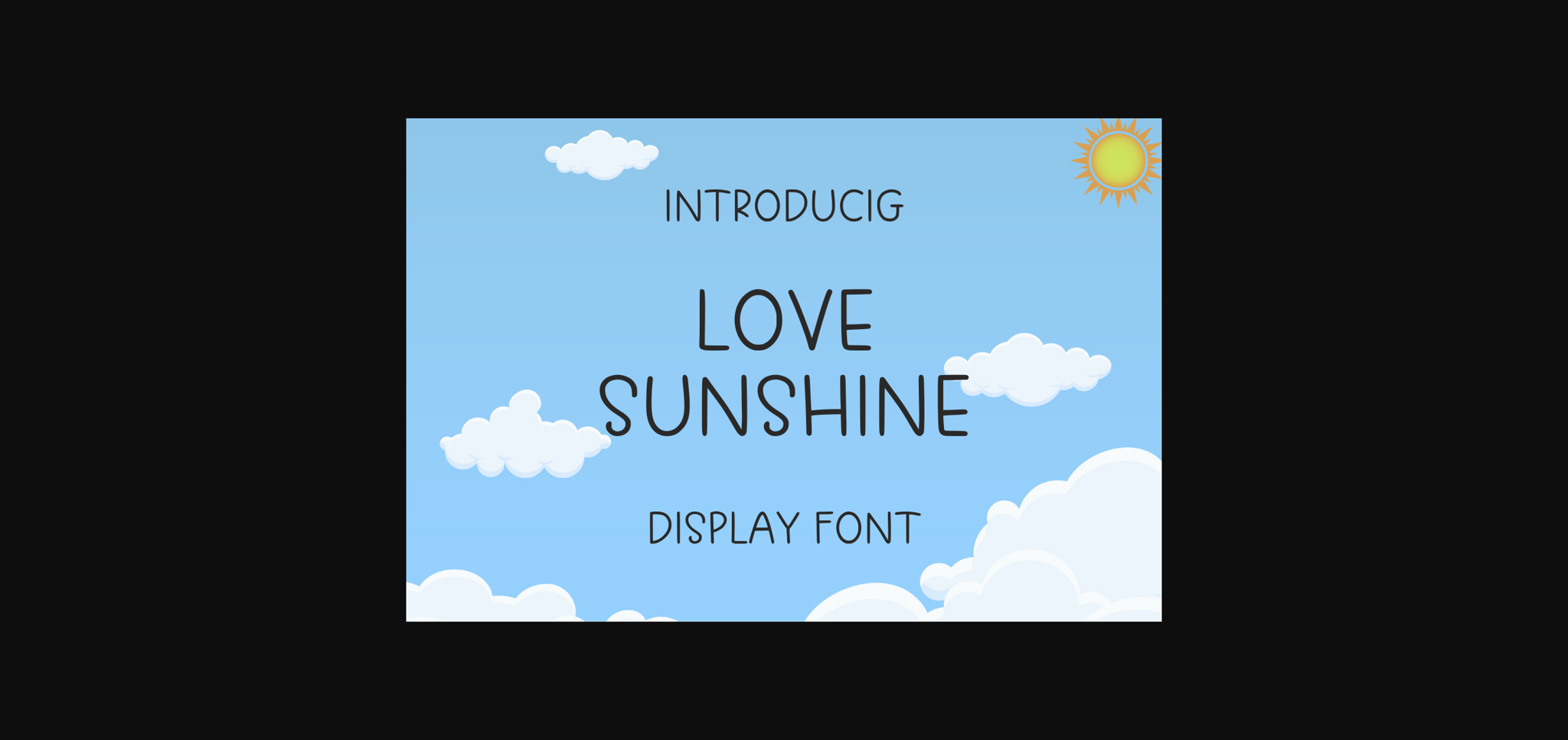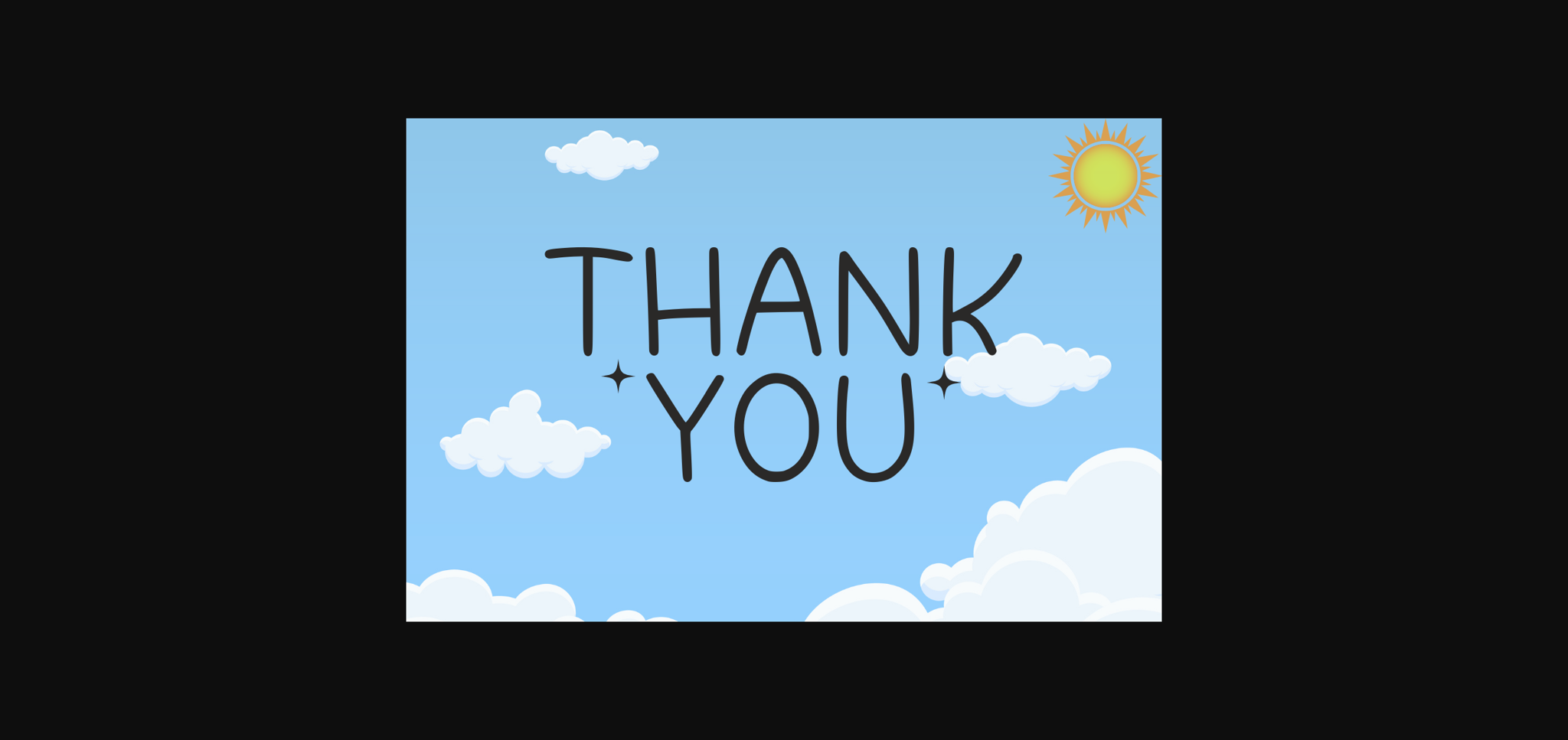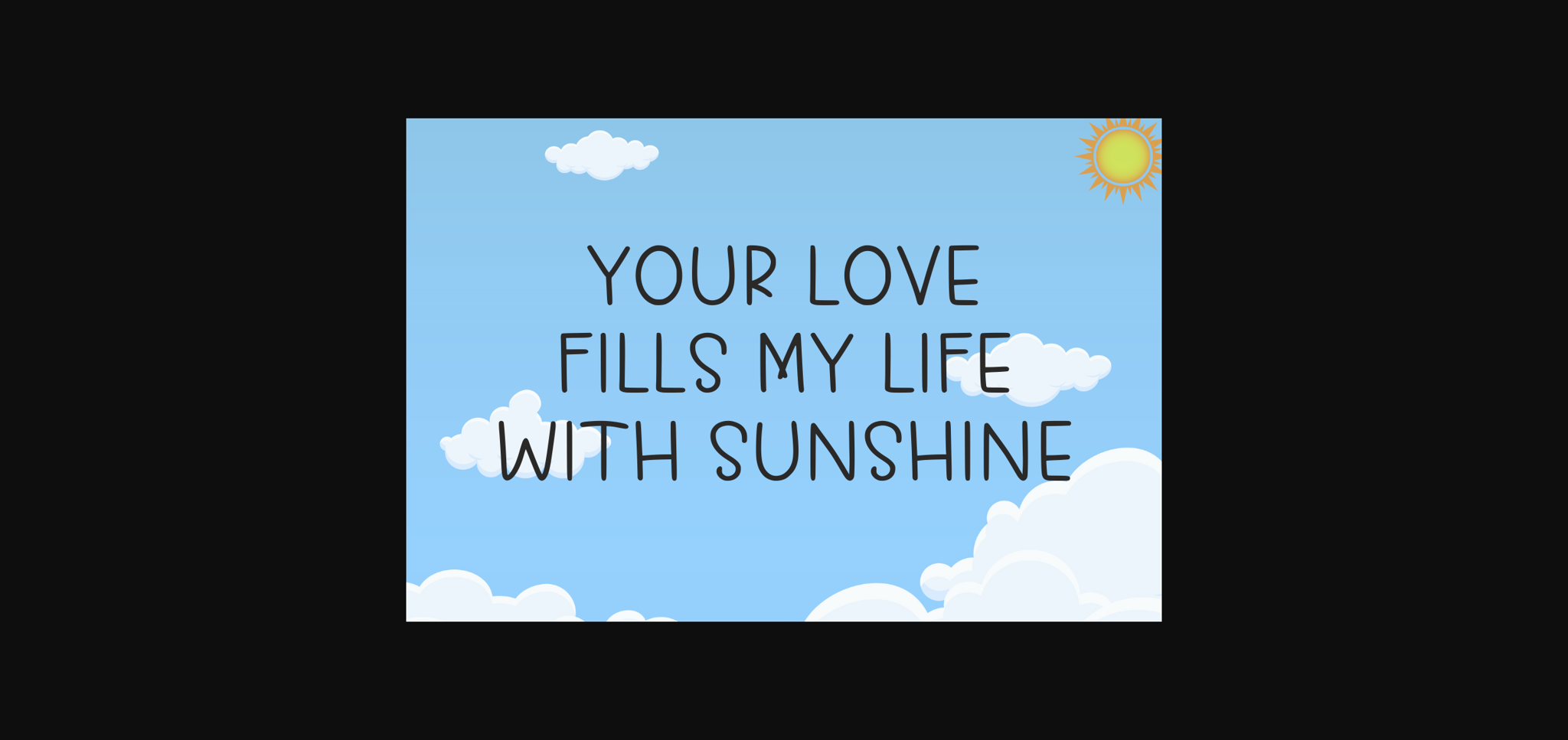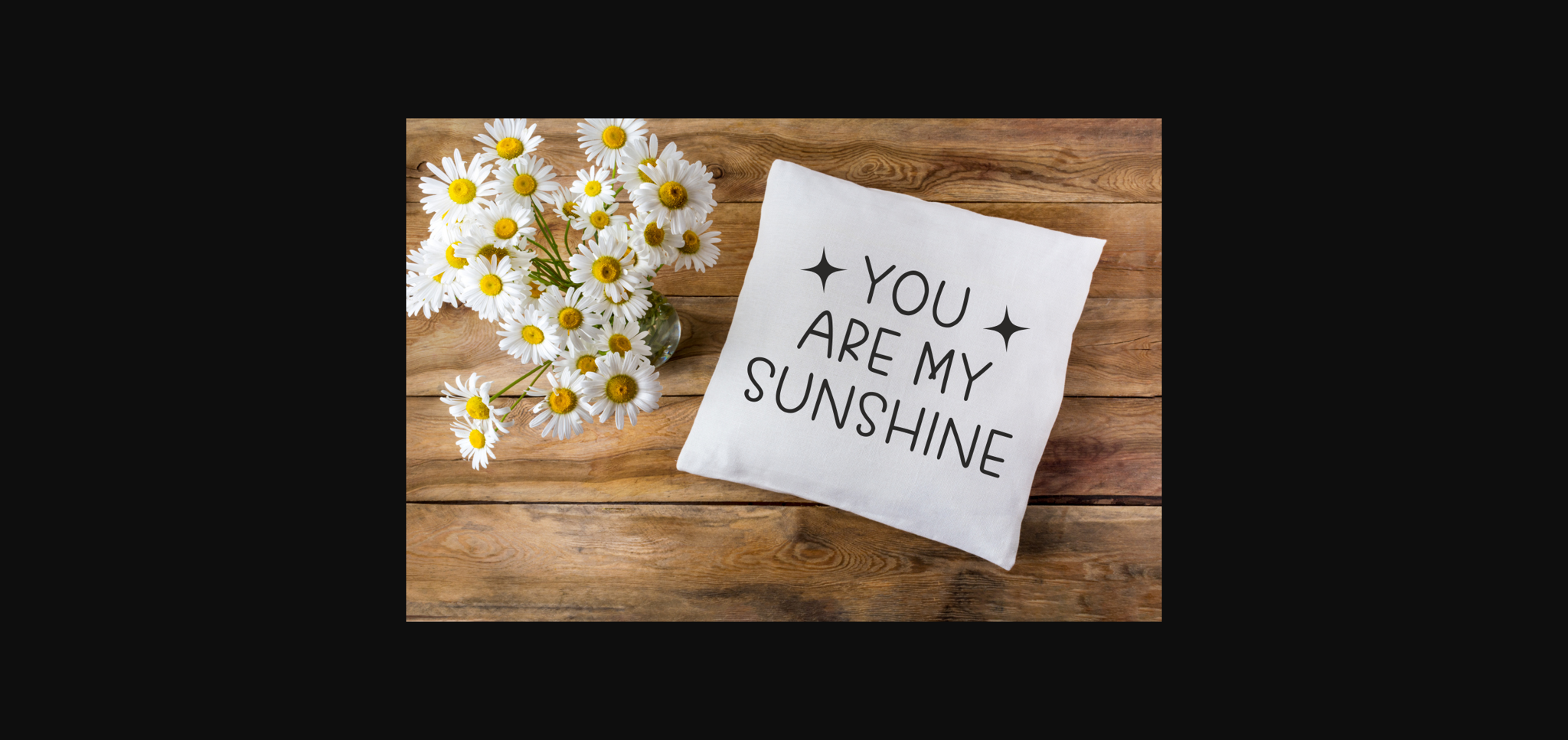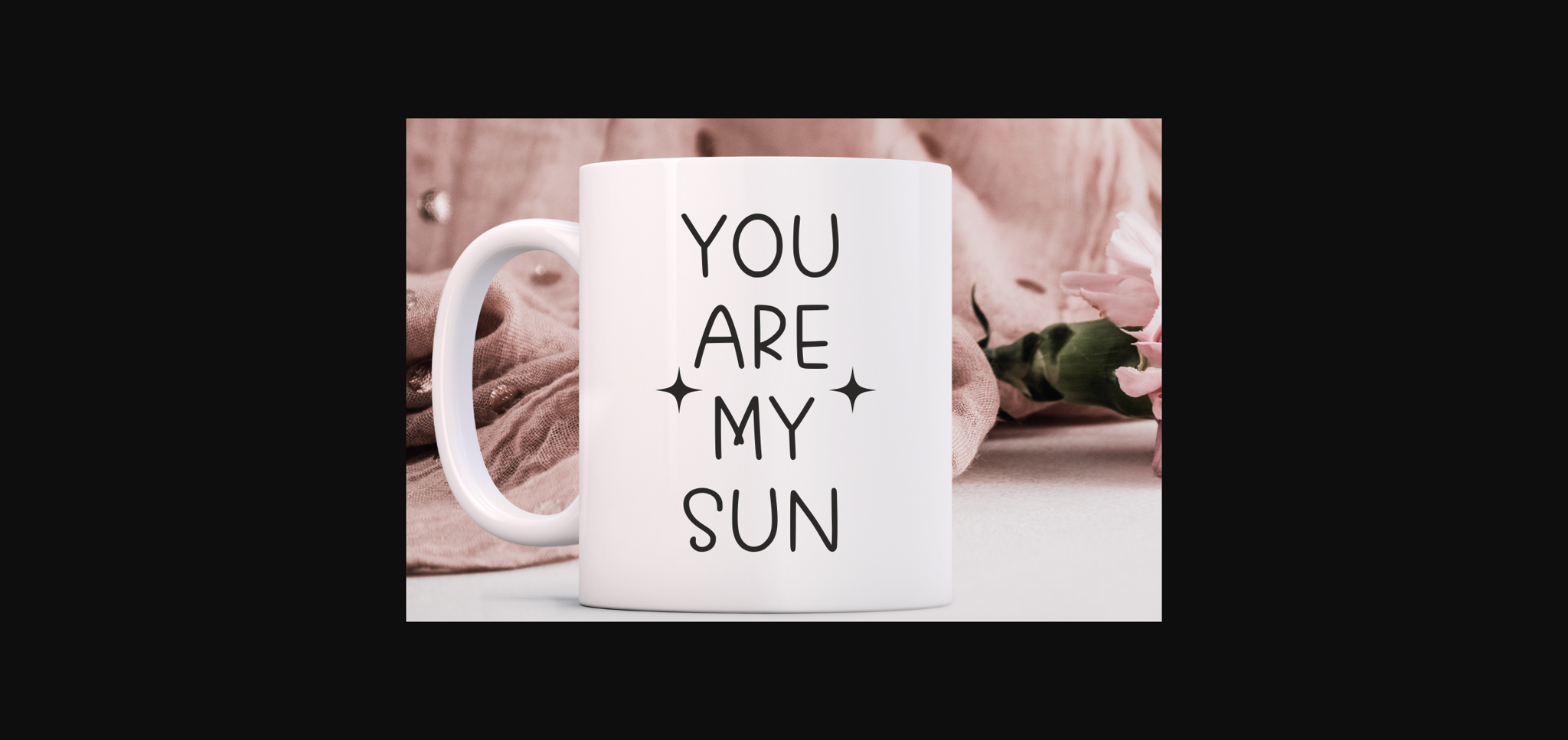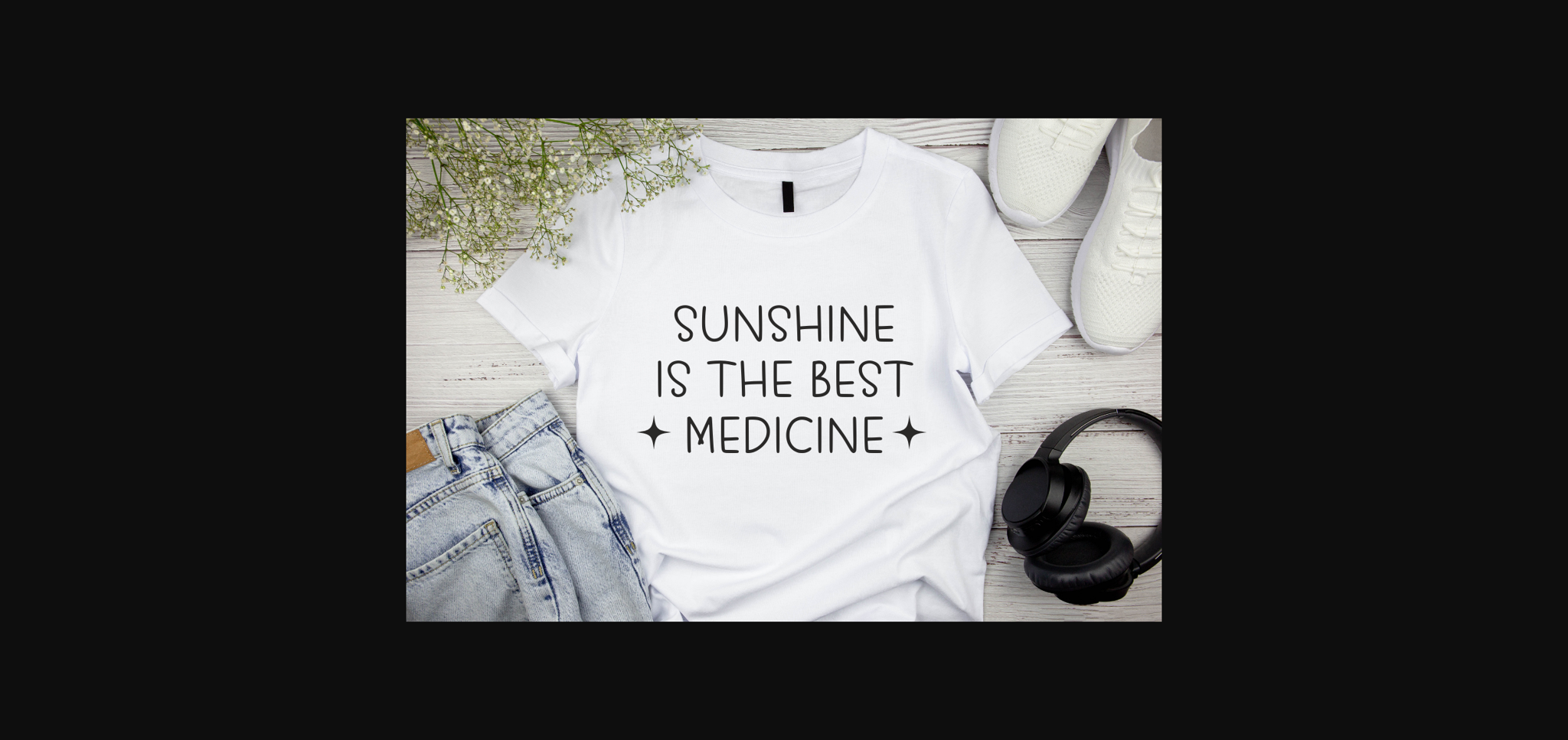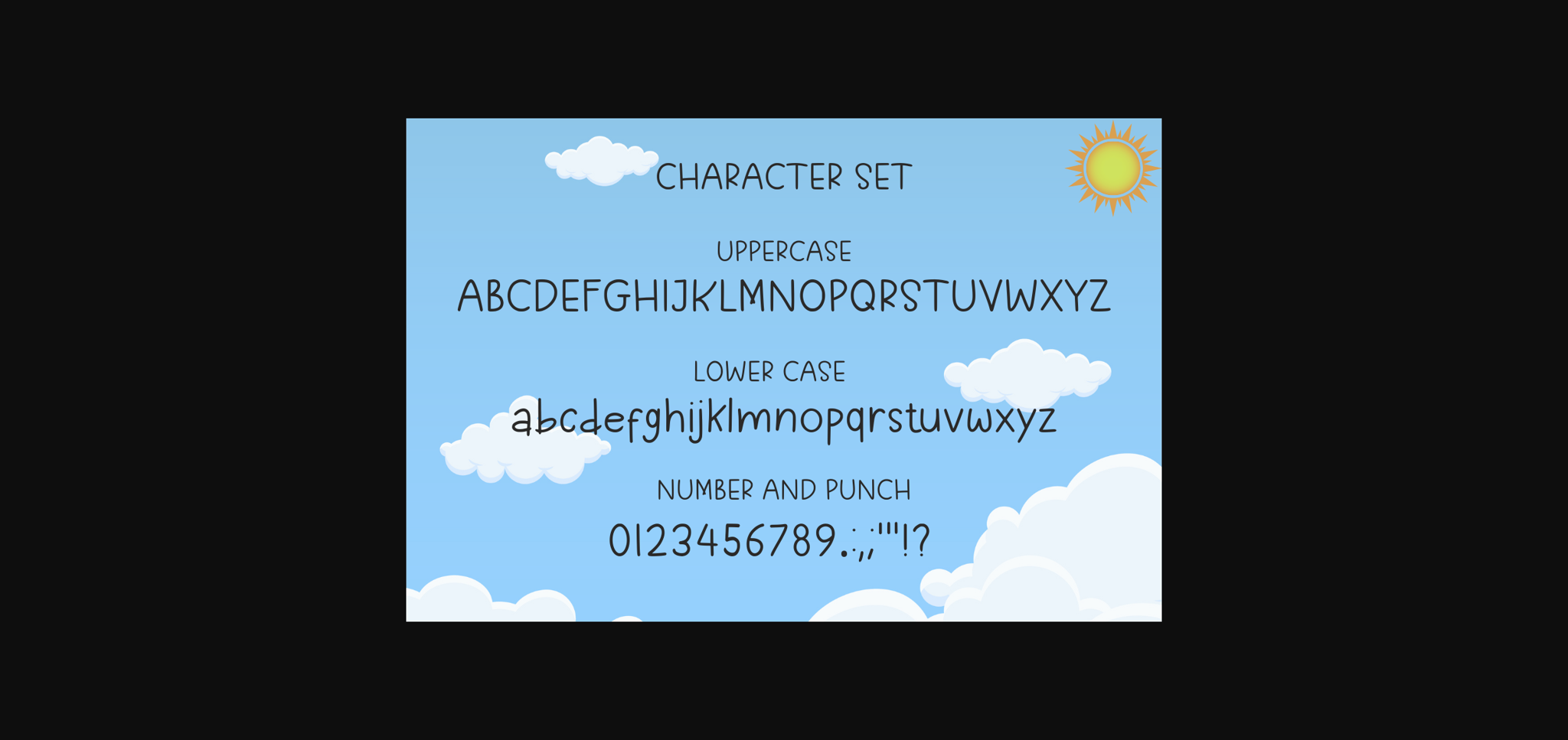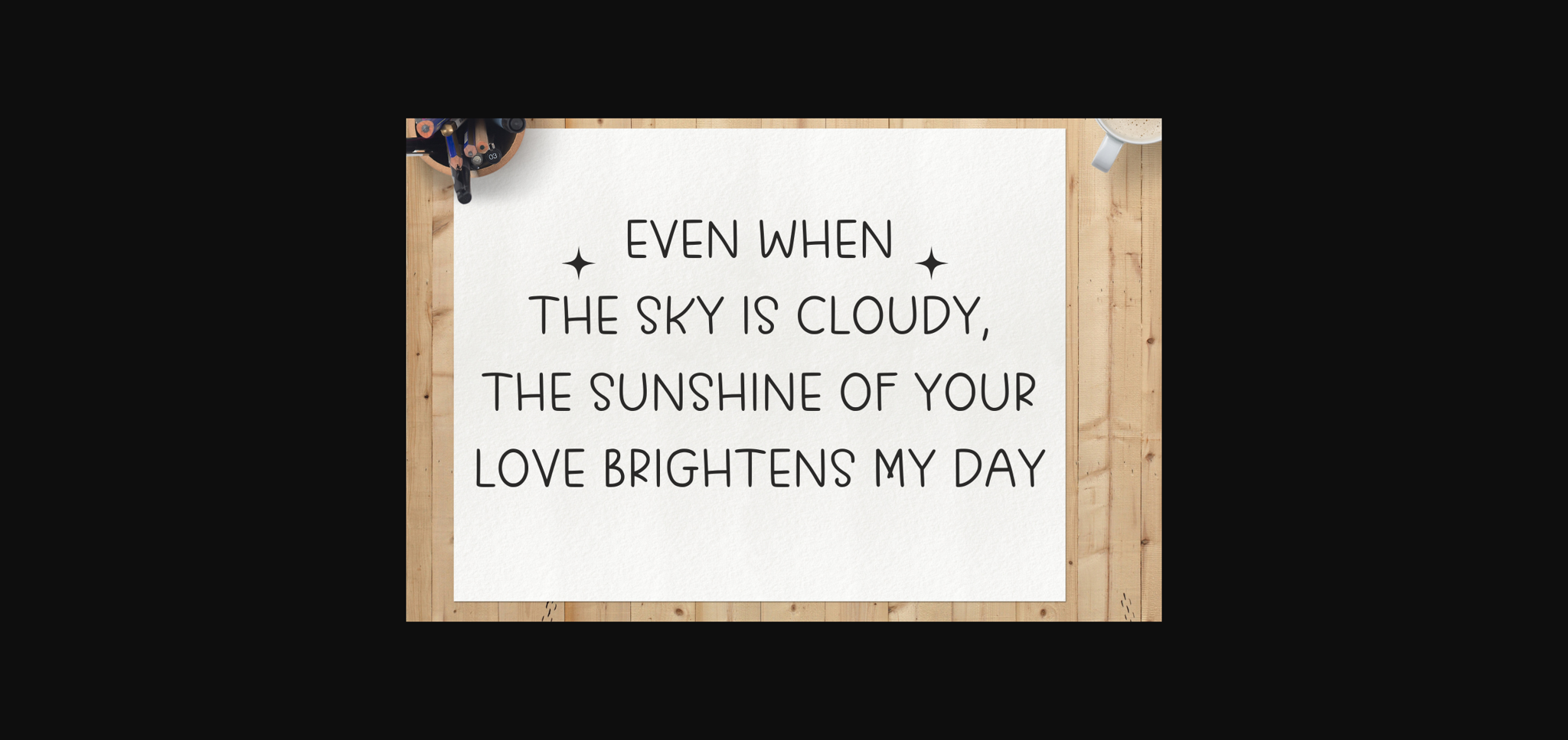
HomeSans Serif FontsLove Sunshine Font Sans Serif Fonts Love Sunshine Font FacebookXPinterestWhatsApp 1 of 10 ... Love Sunshine Font Poster 2... Love Sunshine Font Poster 3... Love Sunshine Font Poster 4... Love Sunshine Font Poster 5... Love Sunshine Font Poster 6... Love Sunshine Font Poster 7... Love Sunshine Font Poster 8... Love Sunshine Font Poster 9... Love Sunshine Font Poster 10... About Love Sunshine Font Love Sunshine is a cute and playful sans-serif font. Whatever the topic, this font is perfect for your creative craft needs! DOWNLOAD NOW People also explored Beauty Floral Line Font Simple Signature Font Semrawut Font Beatles Culture Font Azka Font Sunshine Tropical Font Nagpakita Yuliantti Signature Font Delmonte Font 296 0 TagsLove Sunshine Font Previous articleWonderful FontNext articleChoco Banana Font LEAVE A REPLY Cancel reply Comment: Please enter your comment! Name:* Please enter your name here Email:* You have entered an incorrect email address! Please enter your email address here Website: Save my name, email, and website in this browser for the next time I comment. Personal Use Free Mahisya Personal Use Free Read more about this font Rafika Personal Use Free Read more about this font Saolice Personal Use Free Read more about this font Bosque Font Personal Use Free Read more about this font BLOG Fonts That Capture the Spirit of New York City New York City is more than just a place—it’s an experience, a rhythm, a visual language... Where to Buy American Fonts Online in 2024 To increase your work productivity, choose the most readable fonts. Using Fonts in Digital Marketing: Tips to Strengthen Your Brand Identity